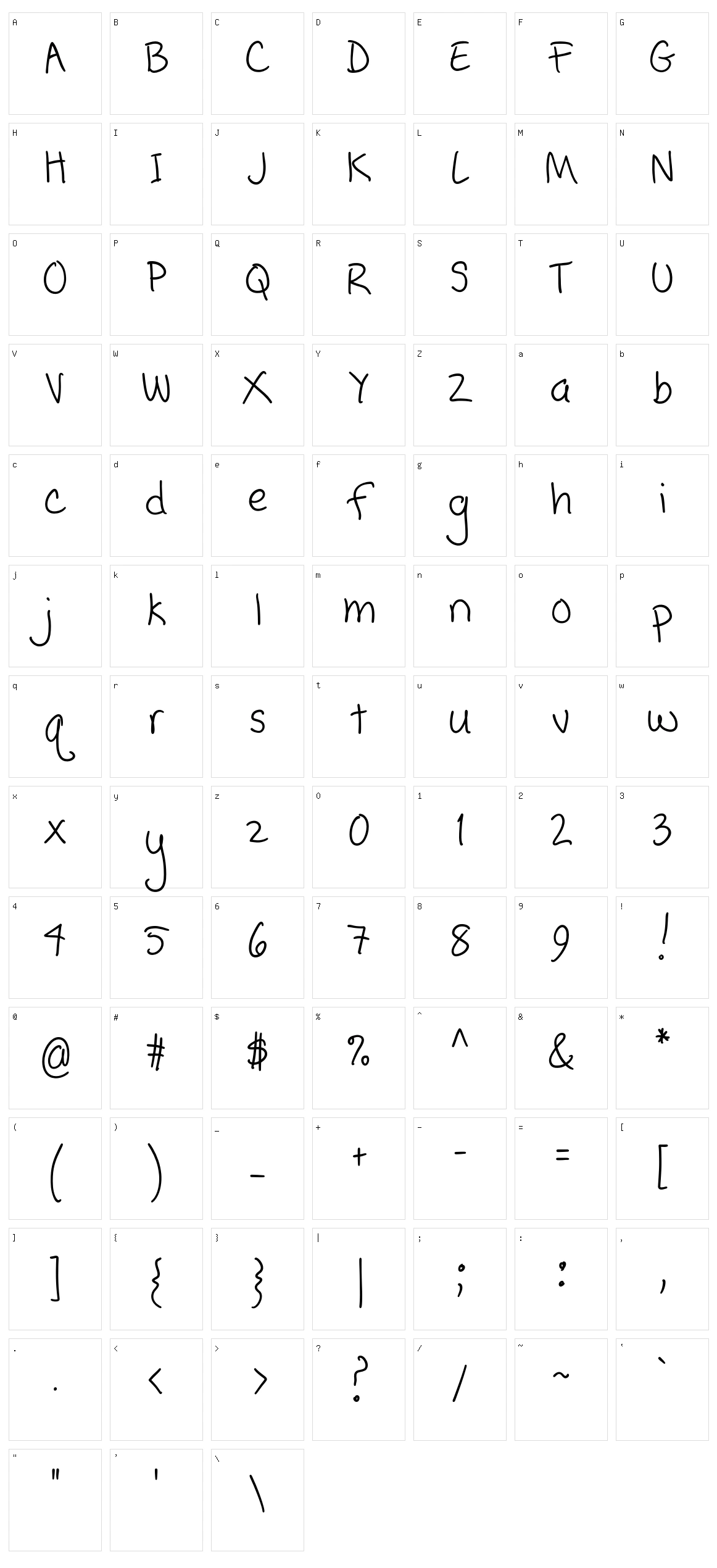
The free font Popcorn Mountain is carefully designed by Lee Batchelor, showcasing a thoughtful balance of creativity and usability and falls under the Script font style. When you download the ZIP file, it contains only 210.81 KB of font files, making it lightweight and quick to download. Please review the license details below to understand permitted usage and distribution rights. If license information is not available, we recommend using this font for personal projects only or contacting the author directly for commercial usage permissions.